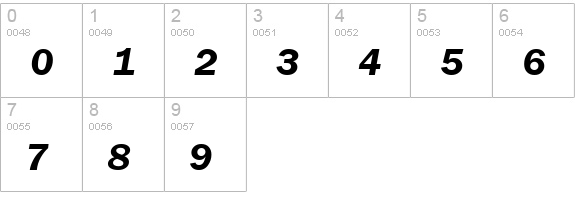
Franklin Gothic Demi Italic is a sub-bold, structured, italic variant in the Franklin typeface family \xE2\x80\x94 well suited to sub-headlines and emphasised passages.
Franklin Gothic Demi Italic is a classic and elegant font that exudes sophistication and modernity. With its sleek and stylish design, this typeface is perfect for adding a touch of refinement to any project. The italicized version of Franklin Gothic Demi adds a dynamic and eye-catching element to your text, making it stand out in a subtle yet impactful way. This versatile font is suitable for a wide range of design projects, from branding and advertising to editorial and web design. Its bold and distinctive appearance makes it ideal for creating headlines, titles, and emphasis within your text. Best of all, Franklin Gothic Demi Italic is free to download at FontsMarket.com. You can easily access this high-quality font to elevate your designs without any cost. Don't miss out on this opportunity to enhance your projects with the timeless appeal of Franklin Gothic Demi Italic.